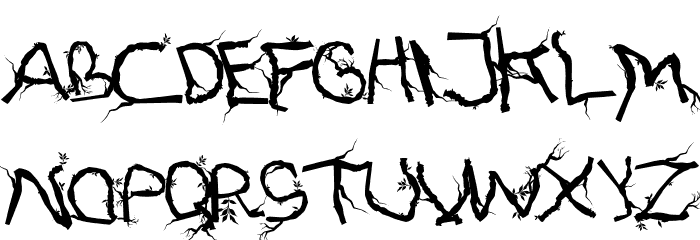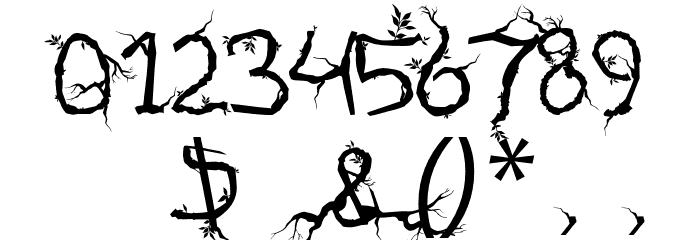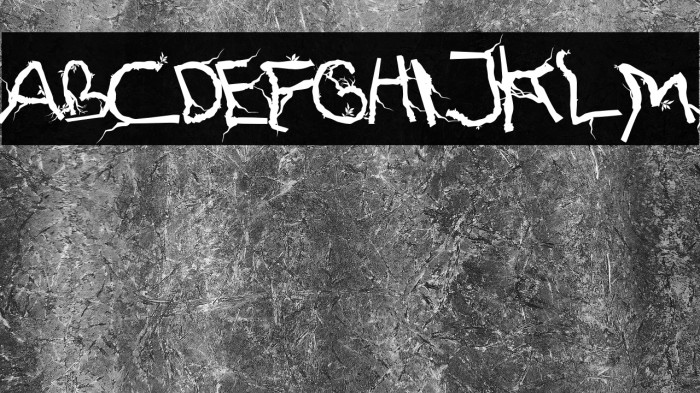
FTFHutanAkarasiana Font
This font features a unique and organic design, with each character resembling twisted branches or vines. The intricate details include small leaves and thorns, giving it a wild and natural appearance. The strokes are uneven and jagged, contributing to its rustic and untamed style. This font is highly decorative, making it suitable for projects that require a natural or earthy theme. The characters are distinct and artistic, with a high level of detail that captures the essence of nature's raw beauty.
An organic, vine-like decorative font with intricate details.
- Proposed Projects: Ideal for nature-themed posters, eco-friendly brand logos, or fantasy book covers.
- Use Case: Logos, Posters, Titles